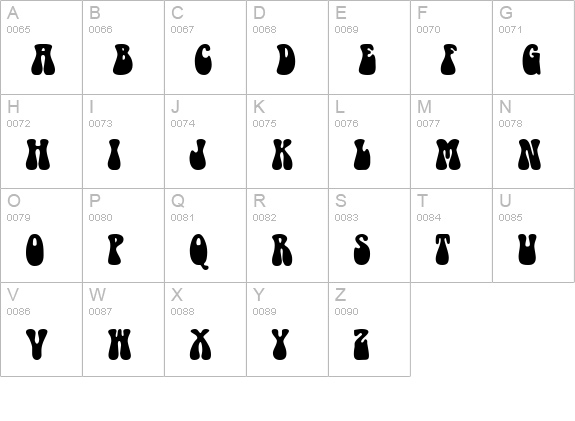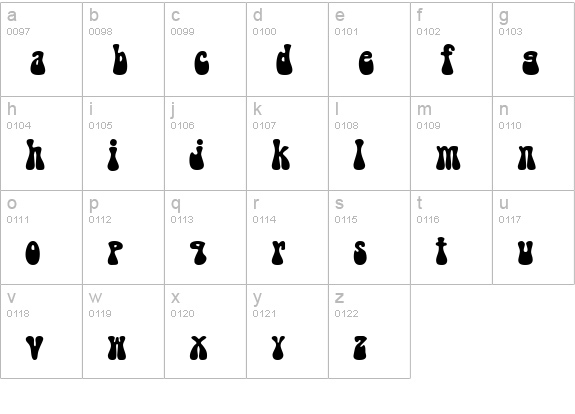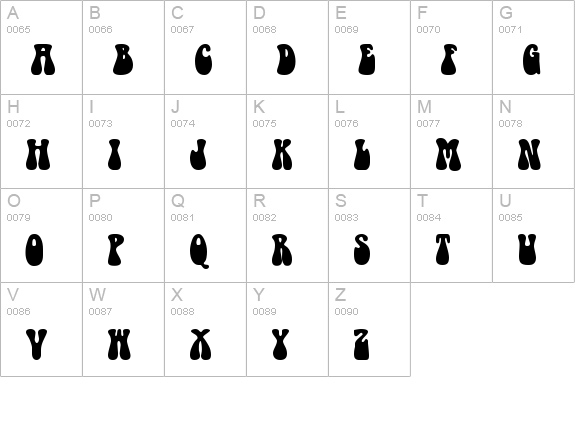
Groovy Normal is the standard, neutral variant in the Groovy typeface family \xE2\x80\x94 well suited to general body text, paragraphs, and standard typographic work.
Introducing Groovy Normal font, a stylish and versatile typeface that exudes a fun and energetic vibe. This font is perfect for projects that require a touch of retro charm or a playful twist. Groovy Normal features a balanced mix of smooth curves and sharp edges, making it both easy to read and visually appealing. What makes Groovy Normal even more appealing is that it is available for free download at FontsMarket.com. This means you can easily add this eye-catching font to your design arsenal without breaking the bank. So whether you're working on a branding project, a poster design, or any other creative endeavor, Groovy Normal is sure to bring a groovy touch to your work. Download it today and let your creativity shine!